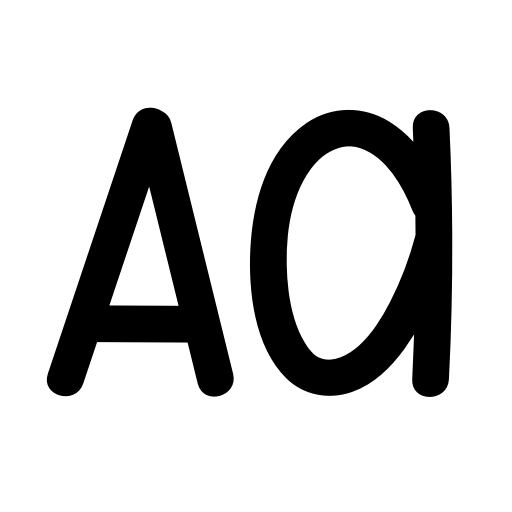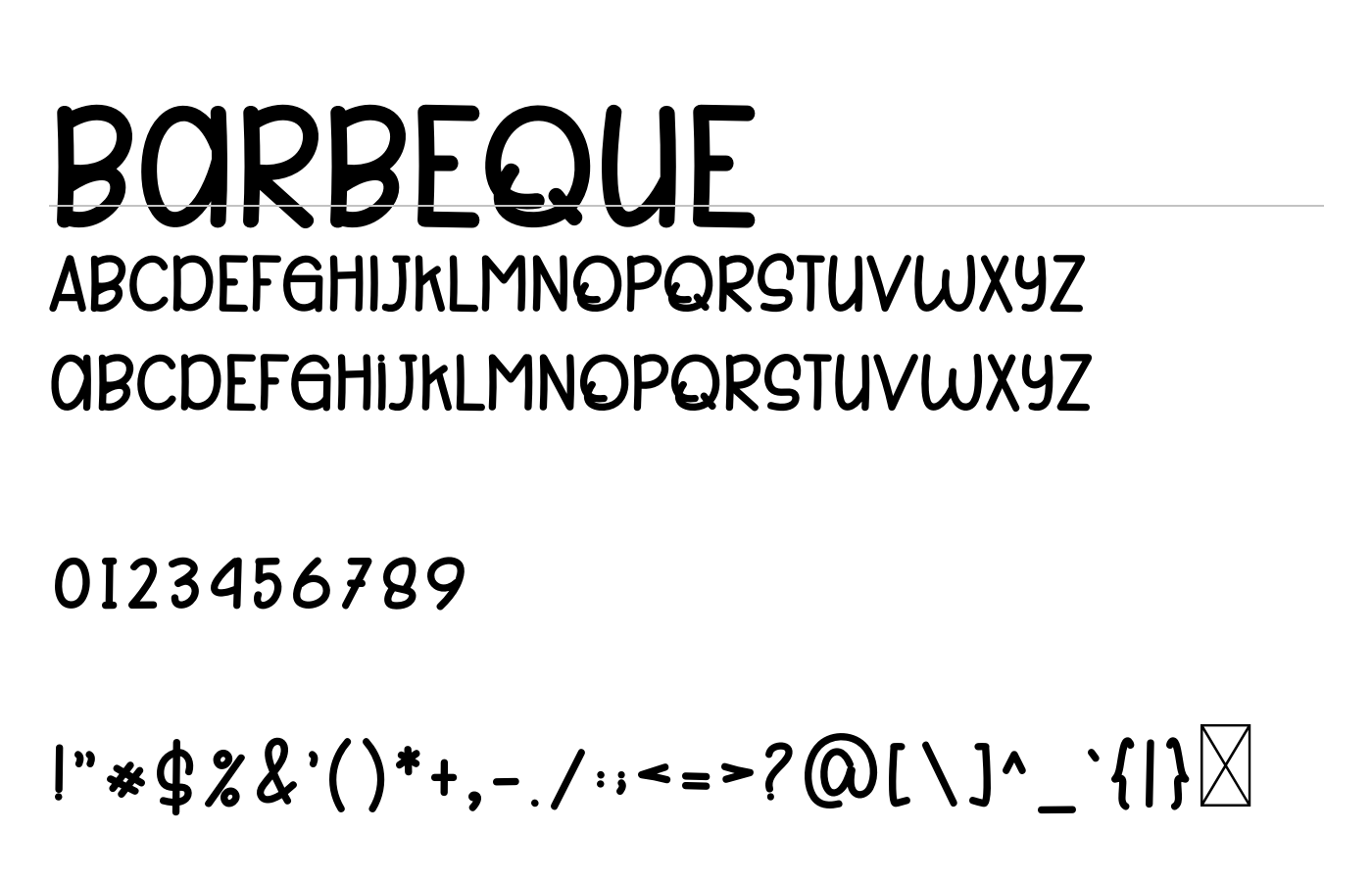
Barbeque Font is a playful, casual sans serif typeface with a hand-drawn feel, featuring rounded strokes and a slightly irregular rhythm that adds charm and warmth. Its medium weight and open letterforms create an inviting, friendly tone suitable for informal designs, making it ideal for children’s books, casual branding, and creative posters. This font’s approachable personality shines best in headlines and display uses where a relaxed and fun style is desired.
Barbeque Font
About Barbeque Font